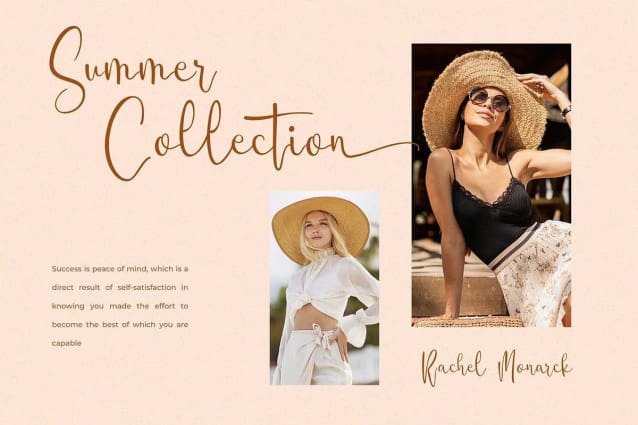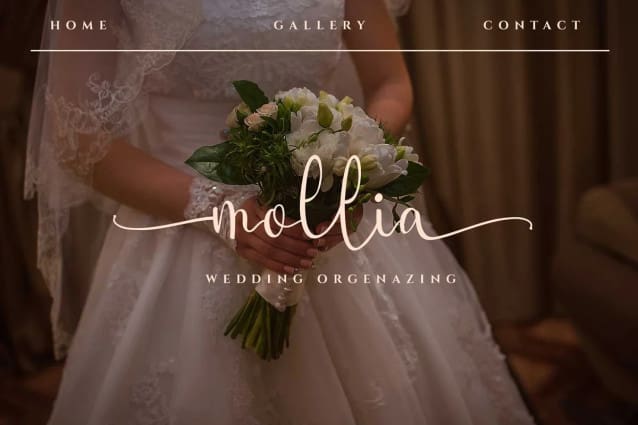
Amelta Script Font
Amelta Script Font is calligraphy font it’s looks modern, feminine, girly, catchy and easy to use. Amelta is the great choice for watermark on wedding organizer, signature or signature logo design, quotes, album cover, business card and many other design project.
Amelta is here to make your work or your business to high level!!!